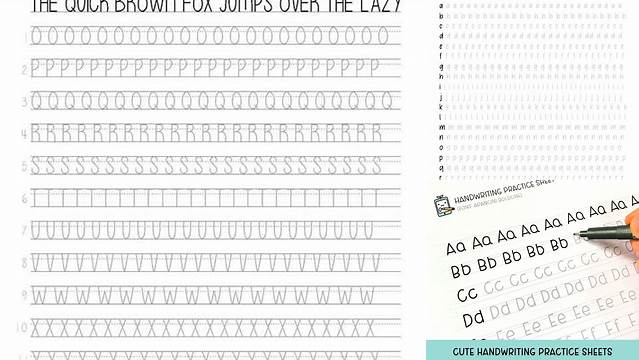
Cute Handwriting Fonts: Practice Sheets & Styles
Introduction to Cute Handwriting Fonts
Hey guys! Ever wanted to make your handwriting look super cute and stylish? You're in the right place! In today's digital world, handwriting might seem a bit old-school, but trust me, a personal, handwritten note or card can make a huge impact. And what better way to make that impact than with adorable handwriting? We're going to dive into the world of cute handwriting fonts and how you can practice them to achieve that perfect, charming script. Whether you're looking to spice up your journal, add a personal touch to your letters, or simply want to improve your penmanship, mastering cute handwriting fonts is a fantastic skill to have. It’s not just about aesthetics; it’s about expressing yourself in a unique and heartfelt way. Plus, it’s a super relaxing and creative activity! Think about the joy of creating beautiful birthday cards, personalized notes for friends, or even just making your to-do lists look a little more fun. With the right practice and guidance, you can transform your everyday handwriting into something truly special and eye-catching. So, grab your favorite pen and paper, and let's get started on this exciting journey to perfect your cute handwriting!
But first, what exactly do we mean by "cute" handwriting? It’s a style that typically incorporates rounded shapes, playful loops, and a whimsical touch. It's the kind of writing that makes you smile when you see it. Think of the fonts you might see in a children’s book or on a greeting card – that’s the vibe we’re going for. These fonts often have a light, airy feel, and they can convey a sense of joy and warmth. The beauty of cute handwriting is that it's incredibly versatile. You can adapt it to suit your own personal style, whether you prefer a more bubbly and energetic look or a softer and more elegant one. The key is to find a style that resonates with you and that you enjoy practicing. After all, the more you enjoy it, the more likely you are to stick with it and see real progress. In the following sections, we’ll explore some specific cute handwriting styles, provide tips on how to practice them effectively, and even share some practice sheets that you can use to get started. So, let’s get ready to unlock your inner calligrapher and create some seriously cute handwriting!
Popular Styles of Cute Handwriting Fonts
Okay, let's explore some popular cute handwriting font styles that you can try out! There's a whole world of different looks and feels out there, so finding one (or more!) that you love is key. Each style has its own unique charm and character, and experimenting with different styles is a great way to discover what suits you best. We'll break down some of the most beloved styles, giving you a taste of what makes each one special. Think of it like trying different flavors of ice cream – you might just find your new favorite! From bouncy and bubbly to elegant and whimsical, there's a cute handwriting style out there for everyone. So, let’s dive in and explore the wonderful world of cute fonts!
First up, we have the bubbly style. This font is all about rounded shapes and a playful, energetic vibe. Think of letters that look like they’re bouncing across the page! It’s a super fun and approachable style that’s perfect for adding a touch of whimsy to your writing. The key to achieving this look is to focus on creating circular shapes and avoiding sharp angles. Imagine each letter as a little bubble – full, round, and slightly inflated. The bubbly style is fantastic for cheerful notes, birthday cards, and anything that needs a dose of fun. Next, there's the script style. This style mimics traditional calligraphy but with a more relaxed and informal twist. It features flowing lines and elegant loops, giving your writing a graceful and sophisticated feel. Script fonts are perfect for invitations, thank-you notes, and anything where you want to add a touch of elegance. The key to mastering script is to practice your letter connections and maintain a consistent slant. Then we have sans-serif styles. These fonts are known for their clean and modern look, without the extra strokes or "serifs" you find in traditional fonts. Sans-serif fonts can be incredibly cute when done right, especially with a slightly rounded and playful touch. They're versatile and easy to read, making them great for everyday writing and journaling. Think of fonts like Comic Sans (though maybe a slightly more refined version!) or similar styles that have a friendly, approachable feel. The secret to a cute sans-serif style is to focus on consistency and spacing, ensuring that each letter is clear and well-formed. Last but not least, we have whimsical styles. These fonts are all about creativity and imagination! They often feature unique letterforms, unexpected flourishes, and a touch of quirkiness. Whimsical fonts are perfect for when you want to add a bit of personality and flair to your writing. Think of letters that dance and twirl across the page, with unexpected loops and curves. The key to a great whimsical style is to let your creativity shine and not be afraid to experiment. So, whether you're drawn to the bubbly, script, sans-serif, or whimsical styles, there's a whole world of cute handwriting fonts waiting for you to explore. The best way to find your perfect style is to try them all out and see what feels most natural and enjoyable for you. And remember, practice makes perfect, so don’t be afraid to experiment and have fun!
Essential Tools for Handwriting Practice
Alright, let's talk about the essential tools you'll need for handwriting practice. You might think that all you need is a pen and paper, and while that's technically true, having the right tools can make a huge difference in your practice sessions. Think of it like cooking – while you can technically cook with just a pot and a spoon, having a good set of knives, pans, and utensils makes the whole process smoother, more enjoyable, and ultimately more successful. The same goes for handwriting! Having the right pens, paper, and other tools can not only improve your writing but also make the practice itself more fun and engaging. So, let's dive into the must-have tools that will set you up for success on your cute handwriting journey.
First up, let's talk about pens. The pen you use can have a significant impact on your handwriting. Different pens create different line widths, ink flows, and overall writing experiences. Experimenting with various types of pens is a great way to find what works best for you. For example, gel pens are a popular choice for their smooth ink flow and vibrant colors. They glide across the page effortlessly, making them ideal for practicing cursive and script styles. Felt-tip pens are another great option, especially for bolder and more defined lines. They're perfect for creating a strong, confident look in your handwriting. If you're looking for precision and control, fine-liner pens are your best bet. These pens have very fine tips, allowing you to create intricate details and delicate strokes. They're fantastic for practicing smaller handwriting styles or adding embellishments to your letters. And, of course, we can't forget about fountain pens. These classic writing instruments offer a unique writing experience, with their smooth ink flow and elegant lines. Fountain pens can add a touch of sophistication to your handwriting, making them a great choice for special occasions or formal writing. Next, let's talk about paper. Just like pens, the type of paper you use can affect your writing experience. Smooth paper is generally the best choice for handwriting practice, as it allows your pen to glide effortlessly across the surface. This type of paper reduces friction and prevents your pen from skipping or catching, resulting in smoother and more consistent lines. Notebooks with high-quality paper are a great option for regular practice. Look for notebooks that are specifically designed for writing, as they often have thicker paper that prevents ink from bleeding through. Loose-leaf paper is also a good choice, especially if you want to use practice sheets or templates. You can easily print out practice sheets and insert them into a binder or folder for organized practice. Grid paper can be incredibly helpful for maintaining consistent letter sizes and spacing. The grid lines provide a visual guide that helps you keep your letters uniform and aligned. This is particularly useful when you're first starting out and trying to develop good habits. Lined paper, of course, is a classic choice for handwriting practice. The lines provide a guideline for your letters, helping you maintain a consistent baseline and height. Lined paper is great for practicing your overall handwriting consistency and ensuring that your letters are evenly spaced.
Effective Practice Techniques
Okay, so you've got your pens, you've got your paper, now let's talk about effective practice techniques to really nail those cute handwriting fonts! Having the right tools is only half the battle; the other half is knowing how to use them effectively. Think of it like learning a musical instrument – you can have the best guitar in the world, but if you don't practice regularly and use the right techniques, you're not going to become a rock star. The same goes for handwriting! Consistent, focused practice using proven techniques is the key to transforming your handwriting from so-so to absolutely adorable. We're going to cover some of the most effective strategies for practicing cute handwriting, so you can make the most of your practice time and see real results. Let's get started on turning you into a handwriting pro!
First and foremost, consistency is key. This might sound obvious, but it's worth emphasizing: the more you practice, the better you'll get. Think of it like building a muscle – you can't expect to see results if you only work out once in a while. The same applies to handwriting. Aim to practice regularly, even if it's just for 15-20 minutes a day. Short, frequent practice sessions are often more effective than long, sporadic ones. Try to establish a routine that fits into your daily schedule, whether it's first thing in the morning, during your lunch break, or in the evening before bed. Make it a habit, and you'll be amazed at how quickly you progress. Next up, focus on the fundamentals. Before you start trying to write fancy words and phrases, it's essential to master the basic strokes and letterforms. Think of these as the building blocks of your handwriting. Start by practicing individual letters, focusing on their shape, size, and spacing. Pay attention to the specific characteristics of the cute handwriting style you're trying to emulate. Are the letters rounded or angular? Do they have loops and flourishes? Are they tall and slender or short and wide? Once you're comfortable with individual letters, move on to practicing letter combinations and short words. This will help you develop a sense of flow and rhythm in your writing. Pay attention to how the letters connect and how they look together as a whole. Use practice sheets to your advantage. These sheets provide guided exercises that help you improve specific aspects of your handwriting. They often include letter tracing exercises, line practice, and word drills. Practice sheets are a great way to build muscle memory and develop consistent letterforms. You can find a wide variety of practice sheets online, or you can even create your own. Tailor your practice sheets to focus on the areas where you need the most improvement. If you're struggling with letter spacing, create a practice sheet that emphasizes even spacing between letters and words. If you're having trouble with a particular letter, dedicate a practice sheet to mastering that letter. Don't be afraid to slow down. When you're first learning a new handwriting style, it's tempting to rush through your practice sessions. However, slowing down and focusing on each stroke can actually be more effective. Pay attention to the pressure you're applying to your pen, the angle of your hand, and the flow of the ink. Try to write deliberately and intentionally, rather than just scribbling quickly. Slowing down allows you to be more mindful of your handwriting and make corrections as needed. It also helps you develop a better sense of the rhythm and flow of your writing.
Free Printable Practice Sheets
Alright guys, let's get to the fun part: free printable practice sheets! Now that we've talked about the styles, tools, and techniques, it's time to put everything into action. And what better way to do that than with some handy practice sheets? Think of these sheets as your personal handwriting coaches, guiding you through the steps to perfect your cute handwriting. They're designed to help you build muscle memory, develop consistent letterforms, and master the unique characteristics of different cute handwriting styles. We've got a variety of sheets for you, covering everything from basic strokes to full alphabets, so you can find exactly what you need to level up your handwriting game. So, grab your favorite pen, print out these sheets, and let's get practicing!
First up, we have the Basic Strokes Practice Sheet. This sheet is all about mastering the fundamental strokes that make up cute handwriting fonts. Think of these strokes as the foundation upon which your letters are built. By practicing these strokes, you'll develop a better sense of control and consistency in your writing. The sheet includes exercises for practicing upstrokes, downstrokes, loops, and curves. These are the building blocks of every letter, so mastering them is essential for achieving a polished and professional look. The Basic Strokes Practice Sheet is perfect for beginners who are just starting to explore cute handwriting, as well as more experienced writers who want to refine their technique. By focusing on the fundamentals, you'll create a solid base for your handwriting and make it easier to progress to more complex styles. Next, we have the Lowercase Alphabet Practice Sheet. This sheet features the entire lowercase alphabet in a cute handwriting font. Each letter is presented with guidelines to help you practice its shape, size, and spacing. The sheet includes both tracing exercises and blank lines for you to practice writing the letters on your own. This is a great way to familiarize yourself with the specific letterforms of your chosen font and develop muscle memory for each letter. The Lowercase Alphabet Practice Sheet is perfect for anyone who wants to master the basic letterforms of a cute handwriting style. By practicing each letter individually, you'll build confidence and improve your overall handwriting consistency. Once you're comfortable with the lowercase alphabet, it's time to move on to the Uppercase Alphabet Practice Sheet. This sheet features the uppercase alphabet in the same cute handwriting font as the lowercase sheet. The exercises are structured similarly, with tracing and blank lines to help you practice each letter. The uppercase letters often have more complex shapes and flourishes than the lowercase letters, so this sheet is a great way to challenge yourself and expand your handwriting skills. The Uppercase Alphabet Practice Sheet is perfect for adding a touch of elegance and flair to your handwriting. By mastering the uppercase letters, you'll be able to create eye-catching headlines, titles, and initial caps. Finally, we have the Word and Phrase Practice Sheet. This sheet includes a variety of common words and phrases written in a cute handwriting font. The exercises are designed to help you develop a sense of flow and rhythm in your writing. By practicing words and phrases, you'll learn how to connect letters smoothly and create a cohesive overall look. The Word and Phrase Practice Sheet is perfect for putting your handwriting skills into practice and creating beautiful, handwritten messages. By working on common words and phrases, you'll improve your speed, consistency, and overall confidence in your handwriting.
So, there you have it, guys! We've covered everything you need to know to start practicing cute handwriting fonts. From understanding the different styles and essential tools to mastering effective practice techniques and improving your speed and legibility, you're now equipped to transform your handwriting into something truly special. Remember, the key to success is consistent practice and a little bit of patience. Think of it like learning any new skill – it takes time and effort, but the rewards are well worth it. The ability to write beautifully is not only a valuable skill in itself, but it's also a wonderful way to express yourself and add a personal touch to your communication. So, don't be afraid to experiment, have fun, and let your creativity shine through your handwriting. And remember, practice makes perfect! The more you write, the more natural and effortless your cute handwriting will become. So, grab your favorite pen, print out those practice sheets, and get started on your handwriting journey today! You'll be amazed at how quickly you can transform your writing and create beautiful, handwritten messages that you'll be proud to share. And who knows, maybe you'll even inspire others to pick up a pen and start practicing their own cute handwriting! The world needs more handwritten notes and cards, so let's spread the joy of beautiful handwriting together. Now, go out there and make your handwriting dreams a reality! Remember, the journey of a thousand beautifully written words begins with a single stroke. So, keep practicing, keep experimenting, and most importantly, keep having fun. Happy writing, everyone!